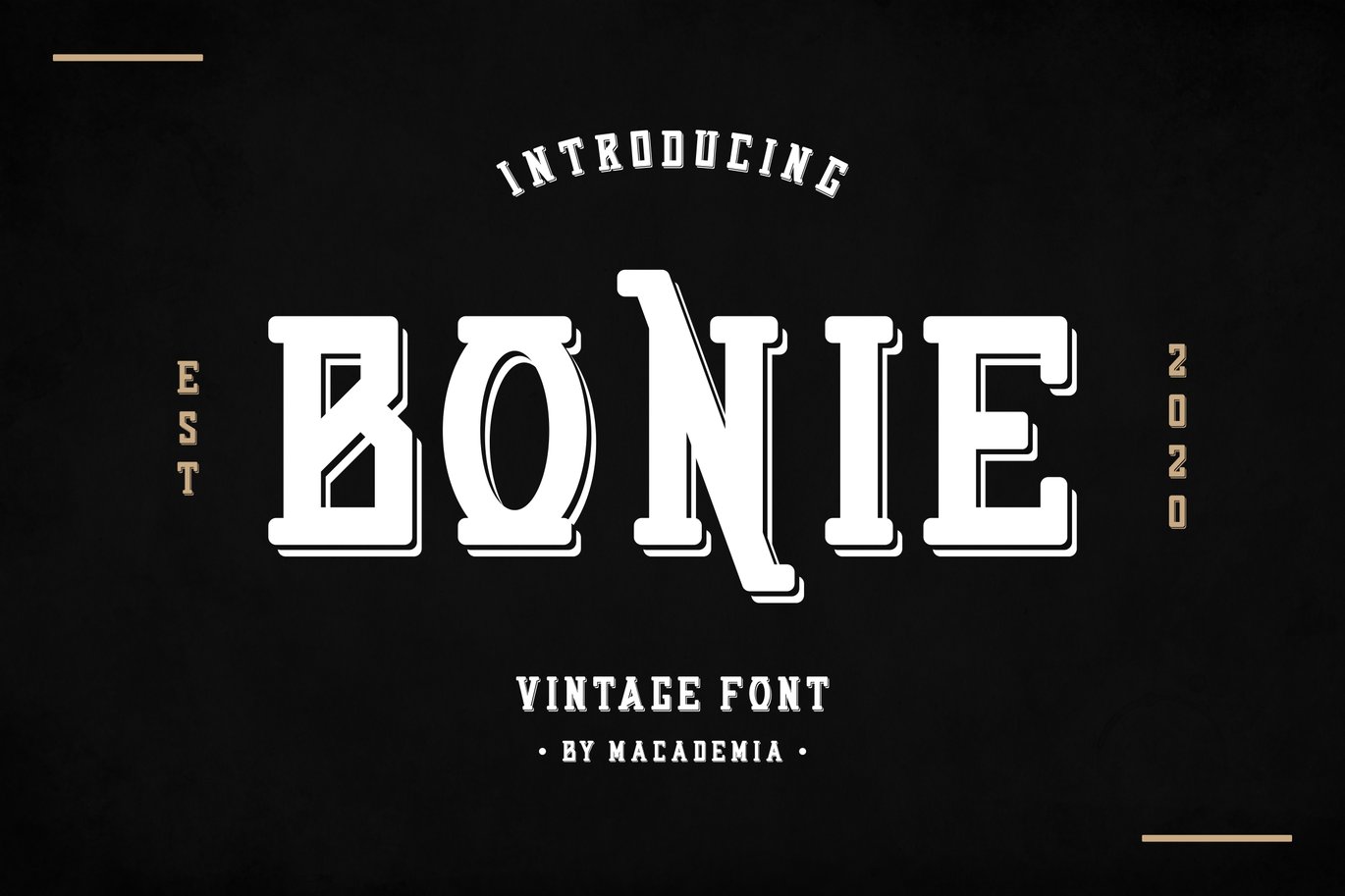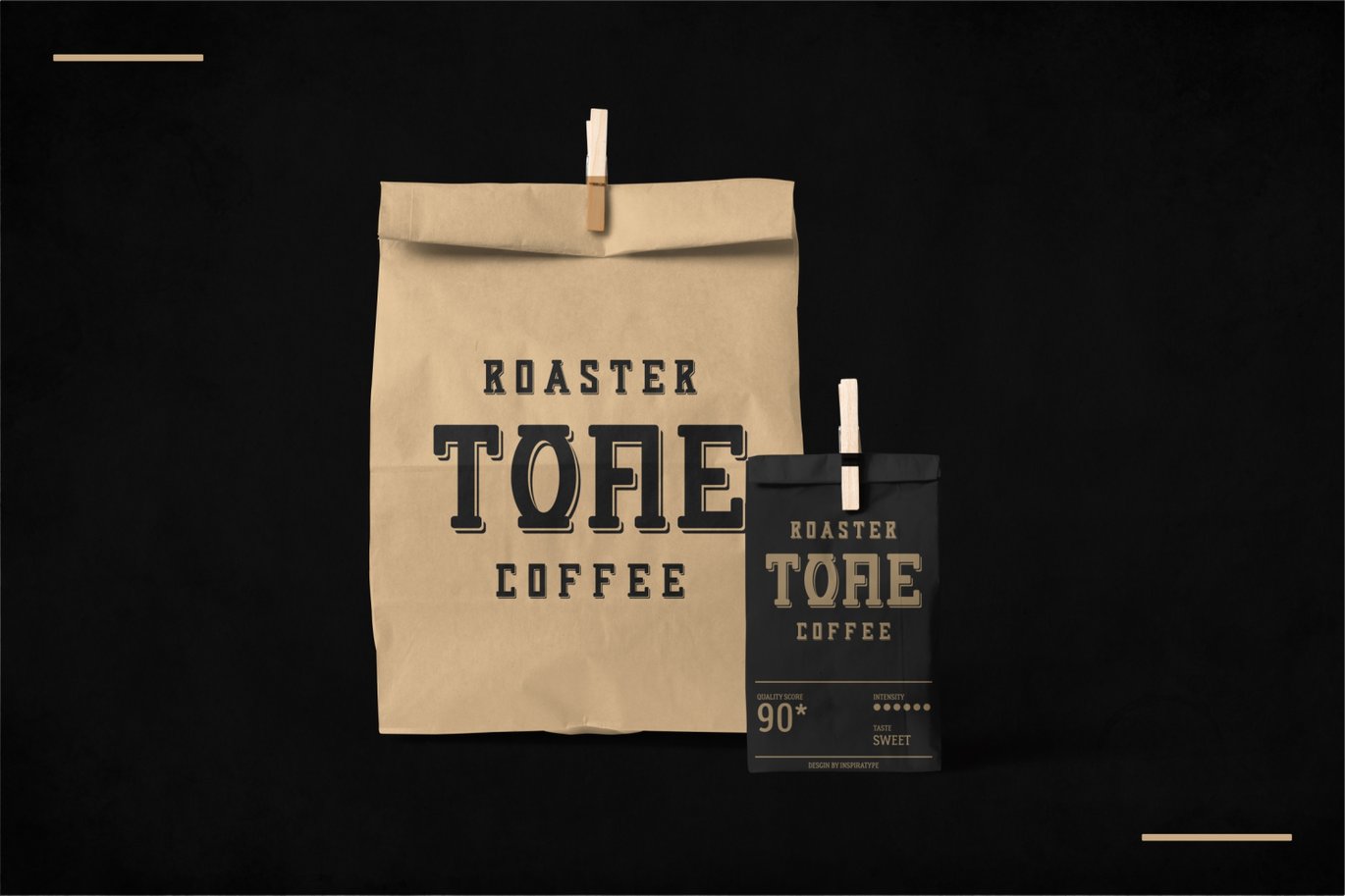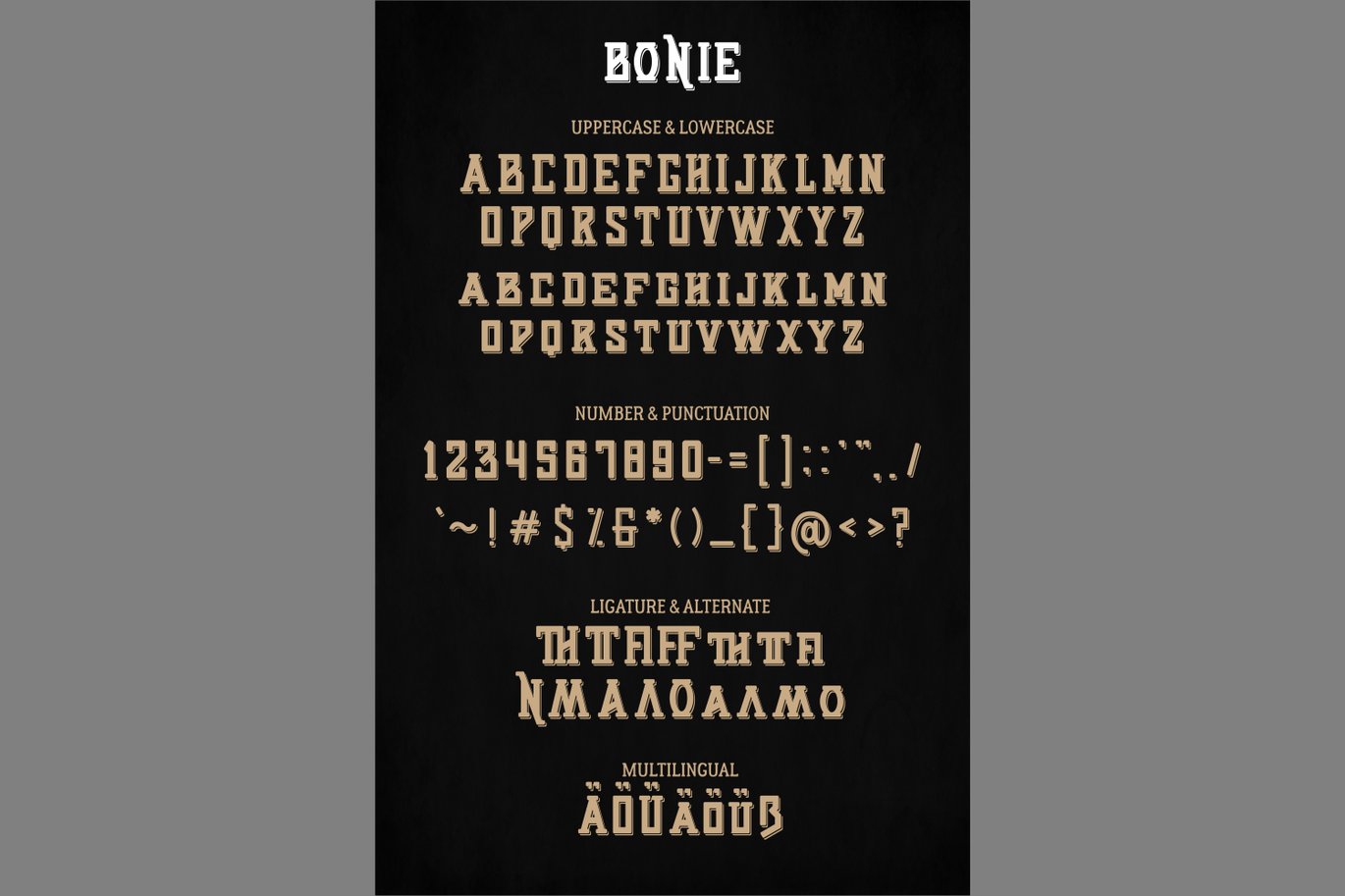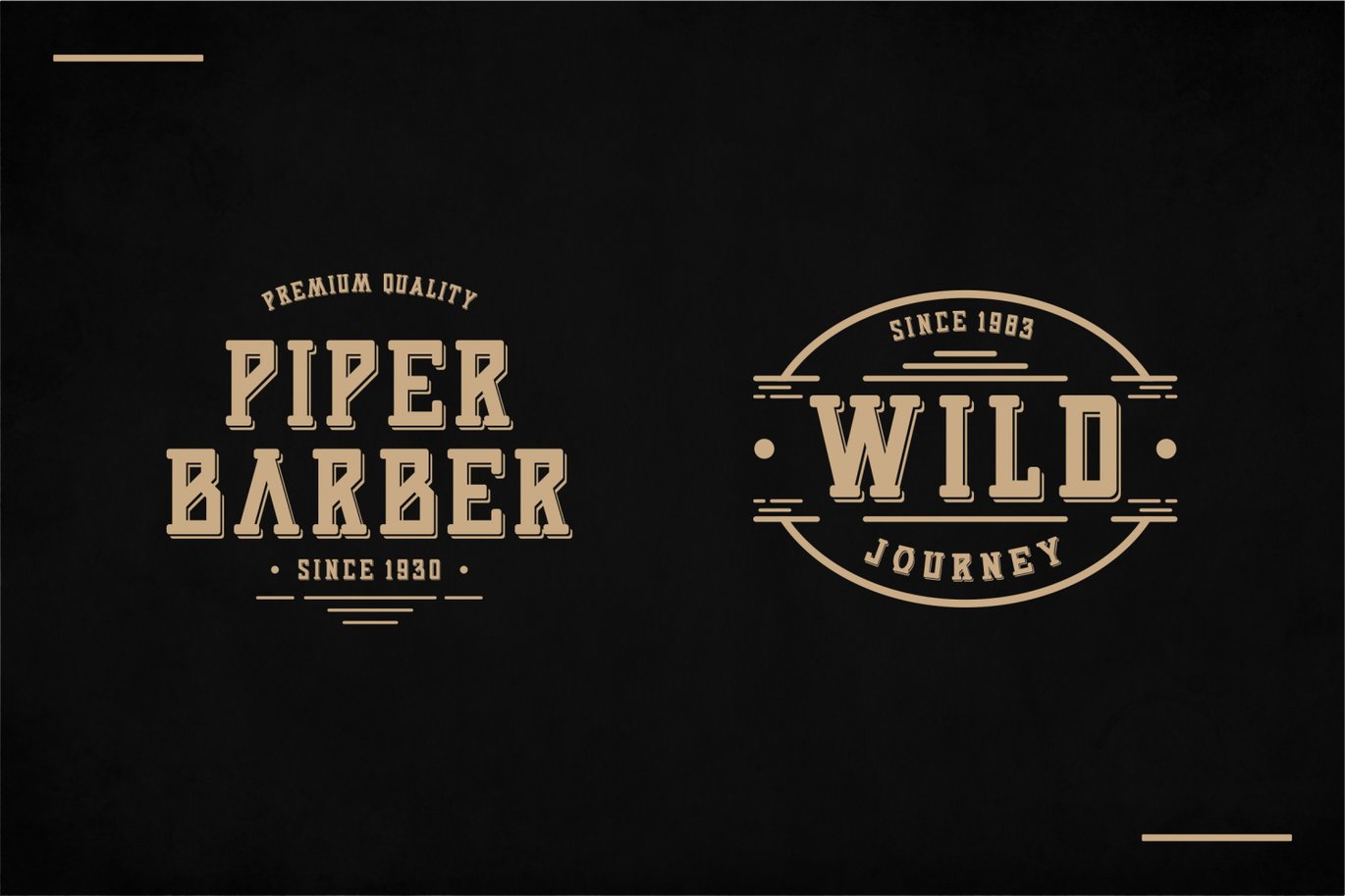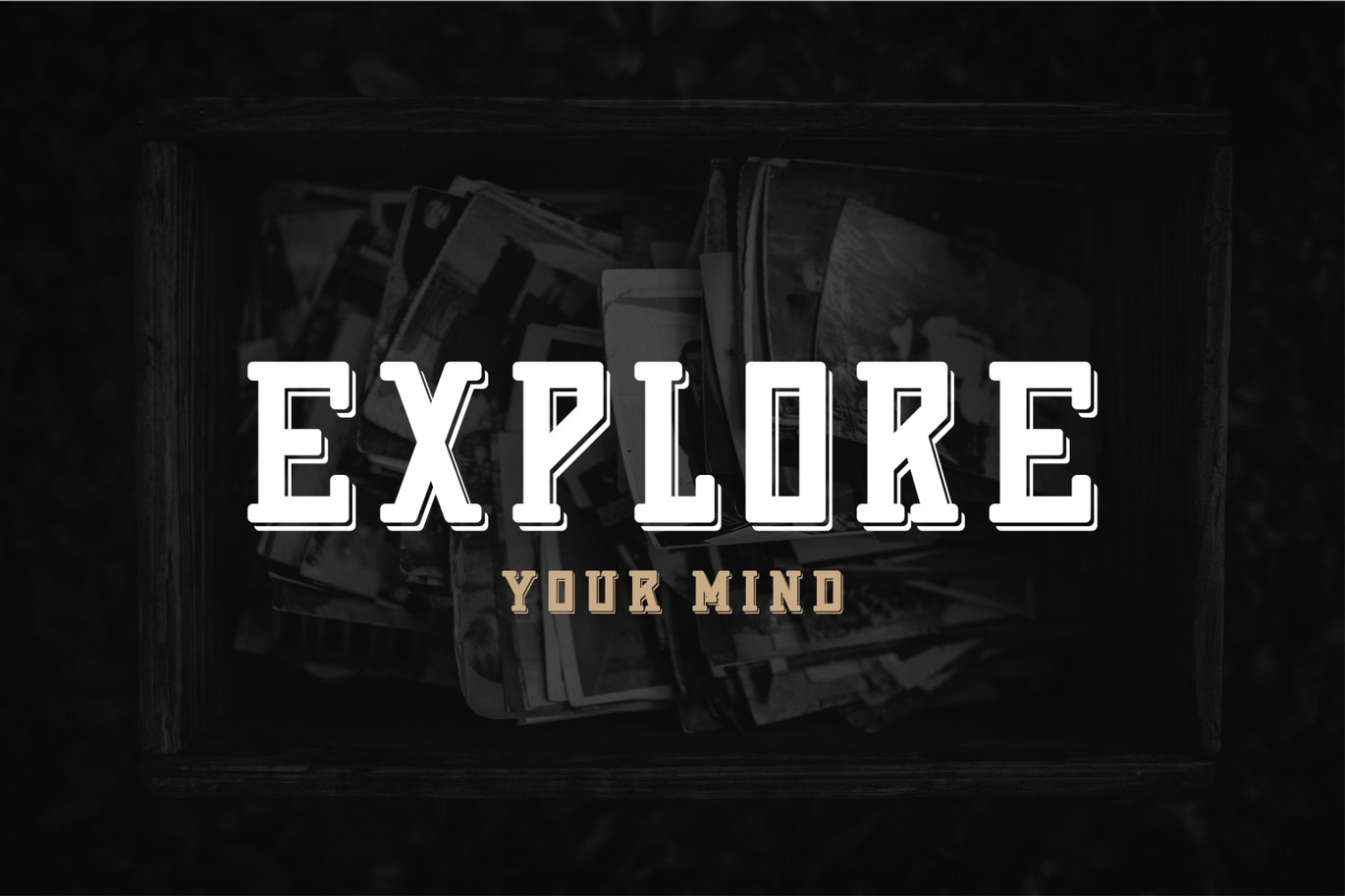
Bonie – Vintage Font
Bonie is perfect to use for Logotype, Letterhead, Poster, Apparel Design, Label and etc.
The alternative characters were divided into several features such as Stylistic Alternates and Ligature.